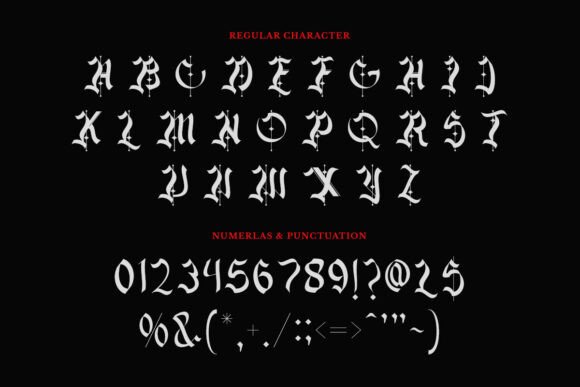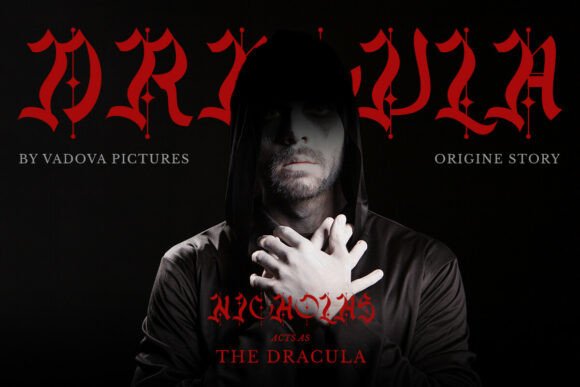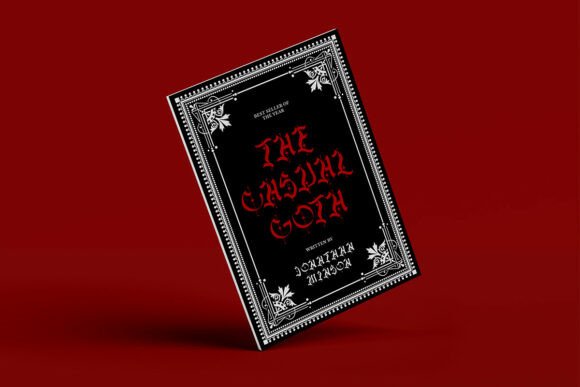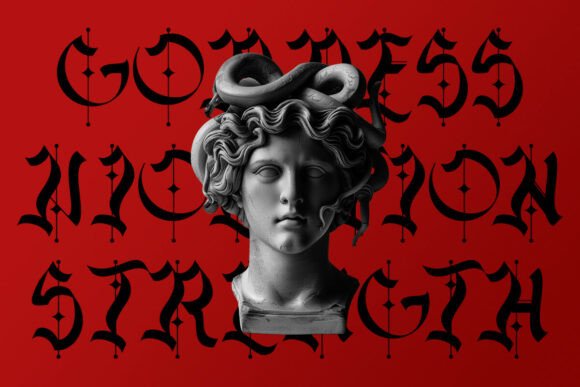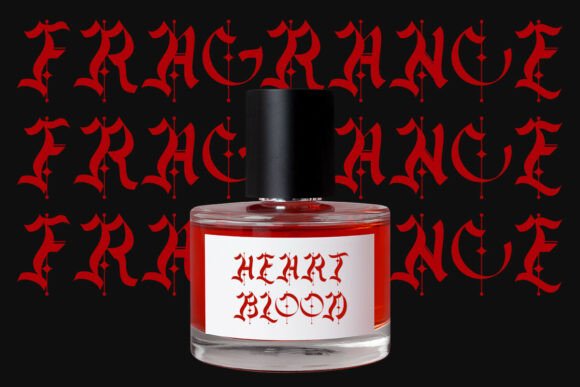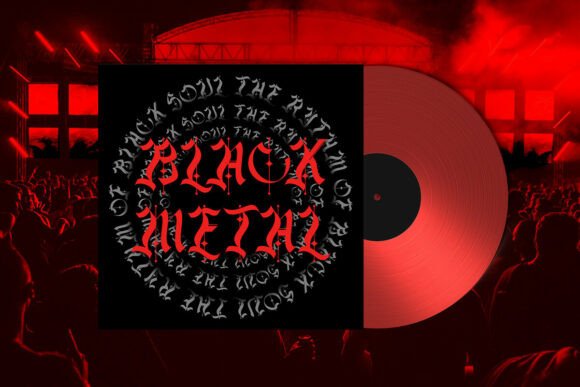
Unlocking the Power of Runecrest Font
As a designer, there’s no thrill quite like the moment when a creative project comes together, and the typography is the perfect finishing touch. You’ve spent hours pouring over design resources, searching for that elusive font that elevates your work from good to great. For many, that elusive font is the Runecrest Font – a modern blackletter display font that’s equal parts dramatic and stylish.
With its sharp, contemporary styling and ornamental terminals, the Runecrest Font is the perfect choice for designers looking to make a statement. Whether you’re working on a branding project or creating a bold visual identity, this high-quality font is sure to deliver. And the best part? It’s available for free download, making it a valuable resource for designers of all levels.
- Unique characteristics: The Runecrest Font features intricate, hand-drawn details and a bold, gothic-inspired style, setting it apart from other fonts in its class.
What works well: ✨ The Runecrest Font comes with a transparent background, making it incredibly versatile for use on various backgrounds. The font itself is beautifully crafted, with intricate details that add a touch of elegance to any design. Plus, it’s available as a free download, which is a huge plus for designers on a budget.
What could be improved: ⚠️ While the font is high quality, I did notice that it’s not as extensive as some other font collections. There are only a few styles available, which might limit its use in certain creative projects.
Overall, I’m thoroughly impressed with the Runecrest Font. Its unique design and transparent background make it a valuable addition to any designer’s toolkit. If you’re looking for a high-quality font to enhance your creative project, I highly recommend giving this one a try.
- Beautifully crafted with intricate details
- Only a few styles available
The Runecrest Font is ideal for a variety of creative projects, including logos, social media graphics, presentations, and documents. Use it to add a touch of elegance and sophistication to your designs.